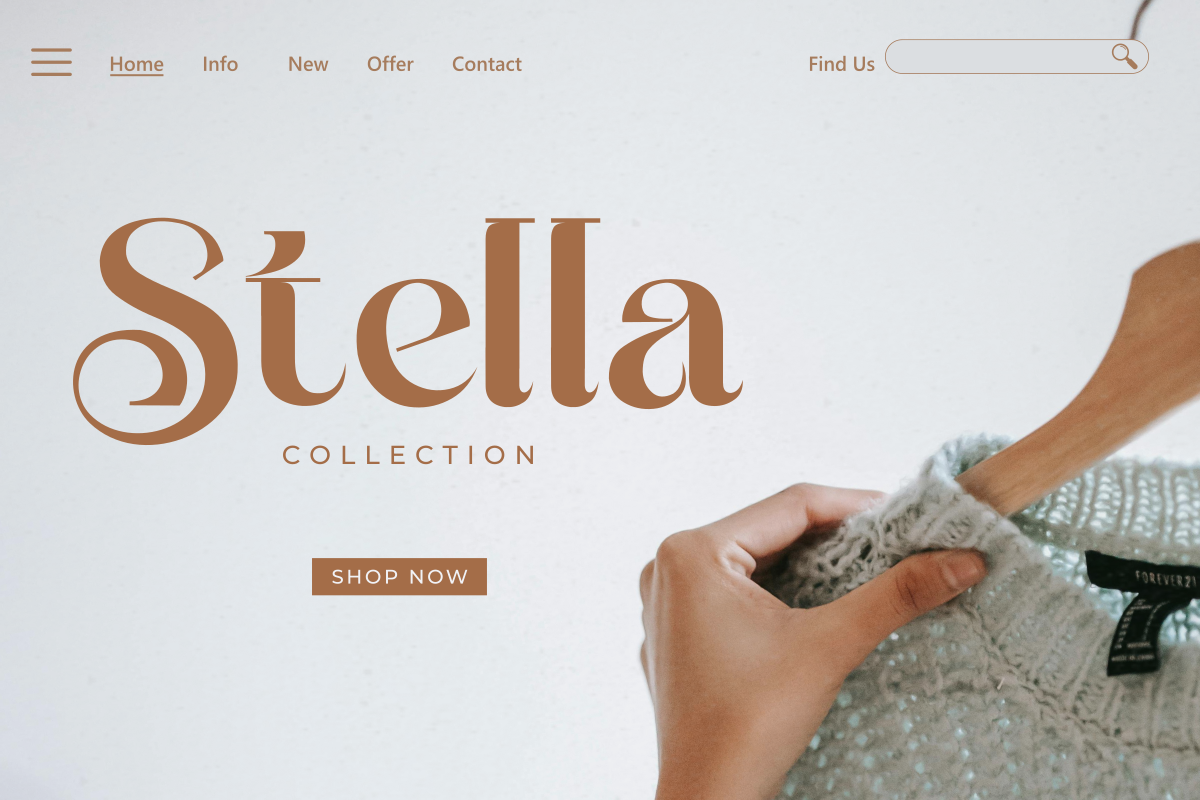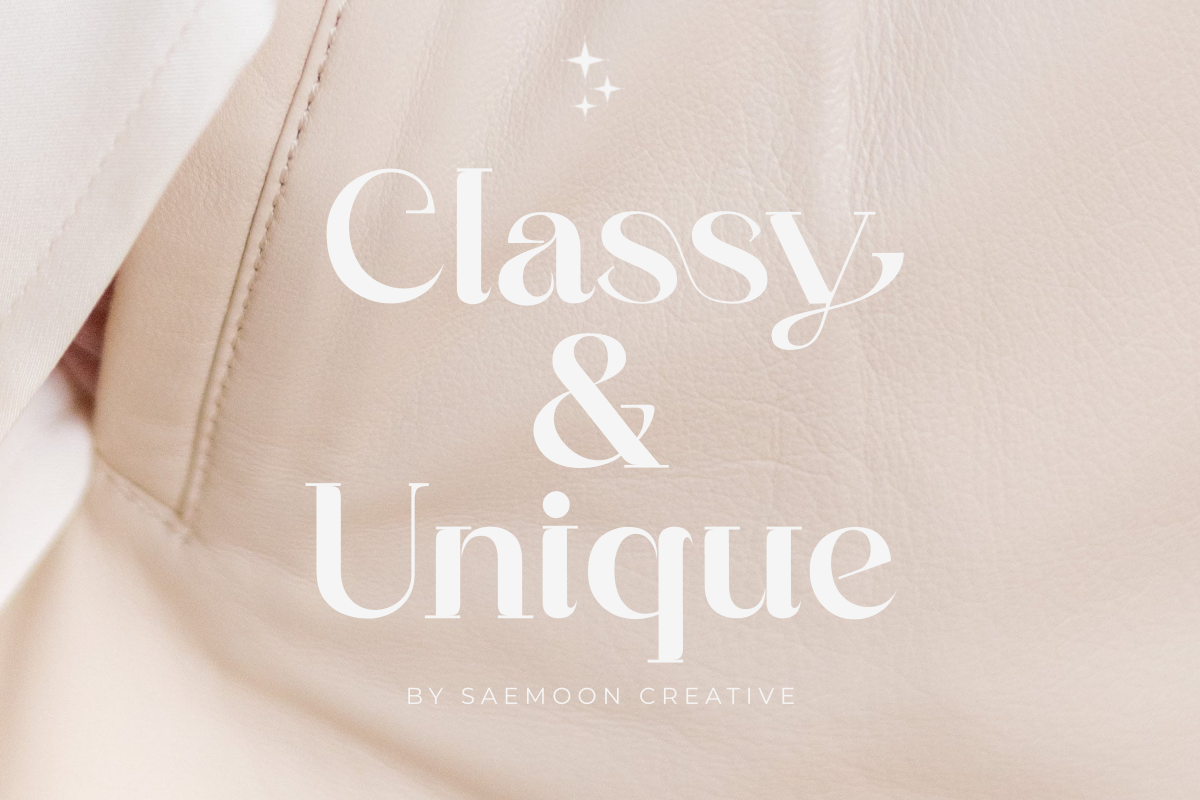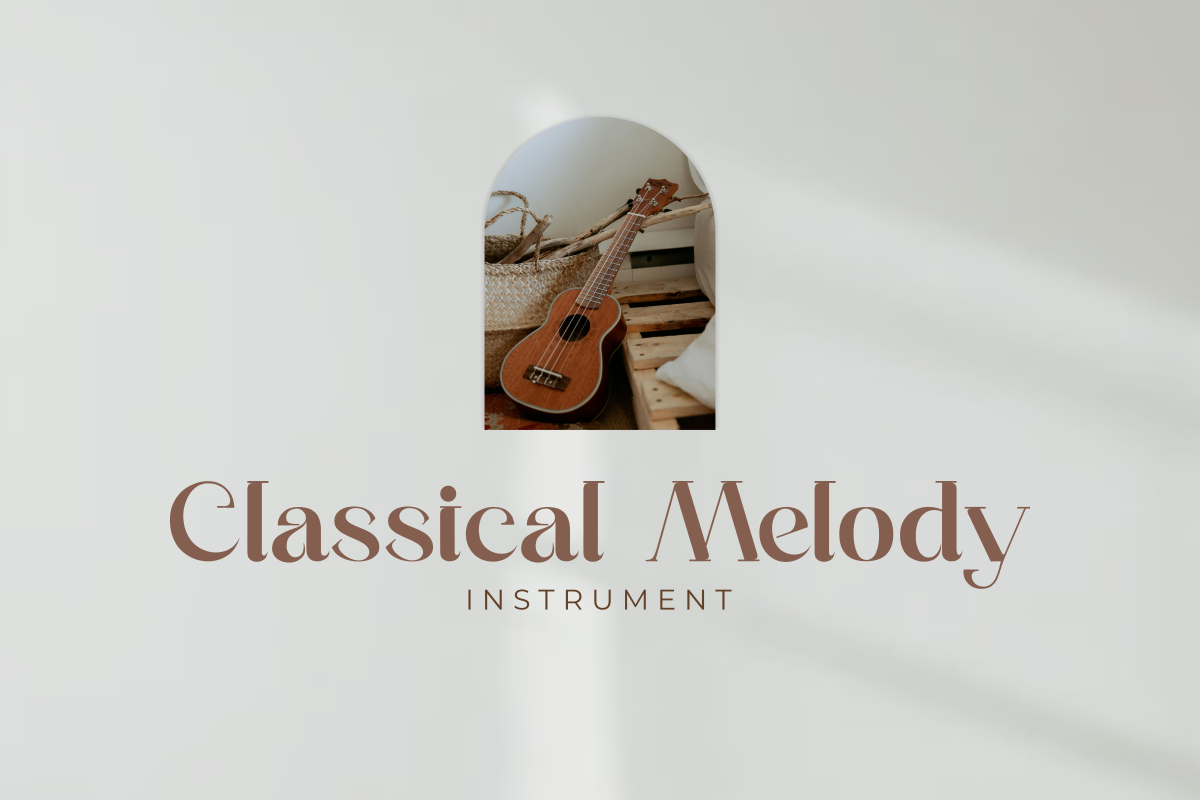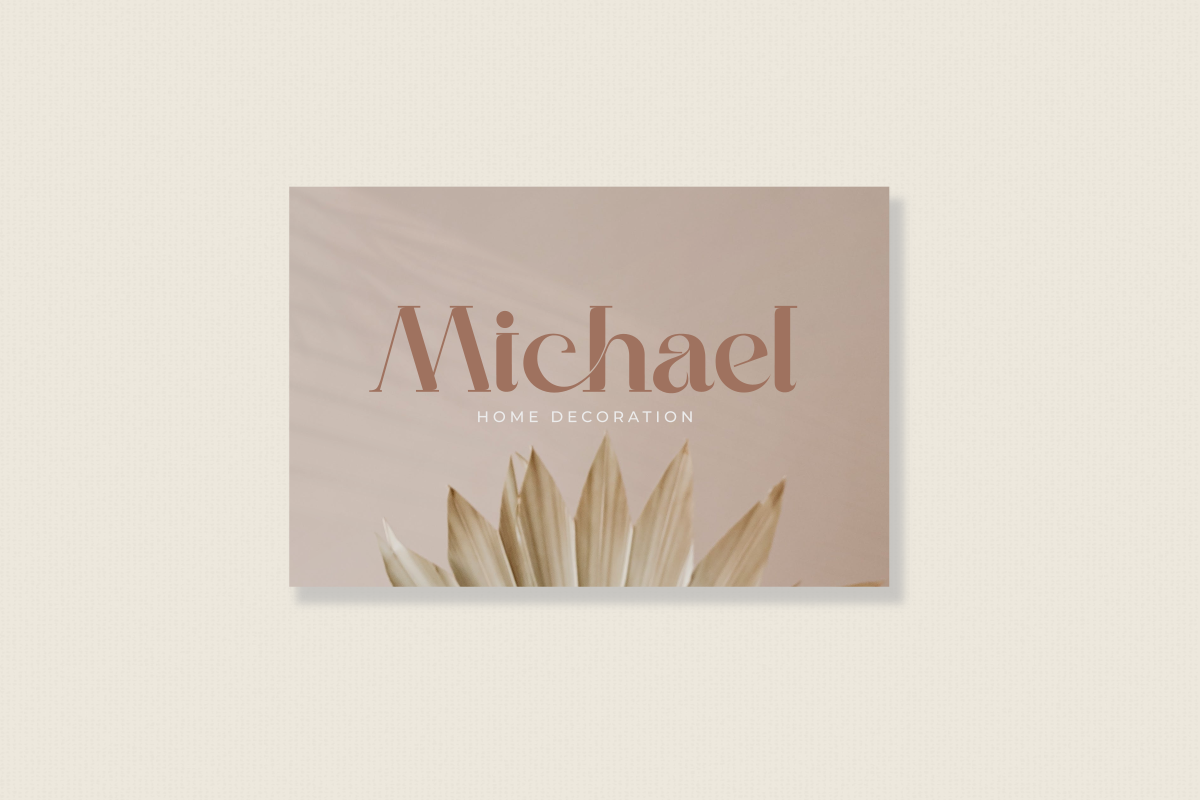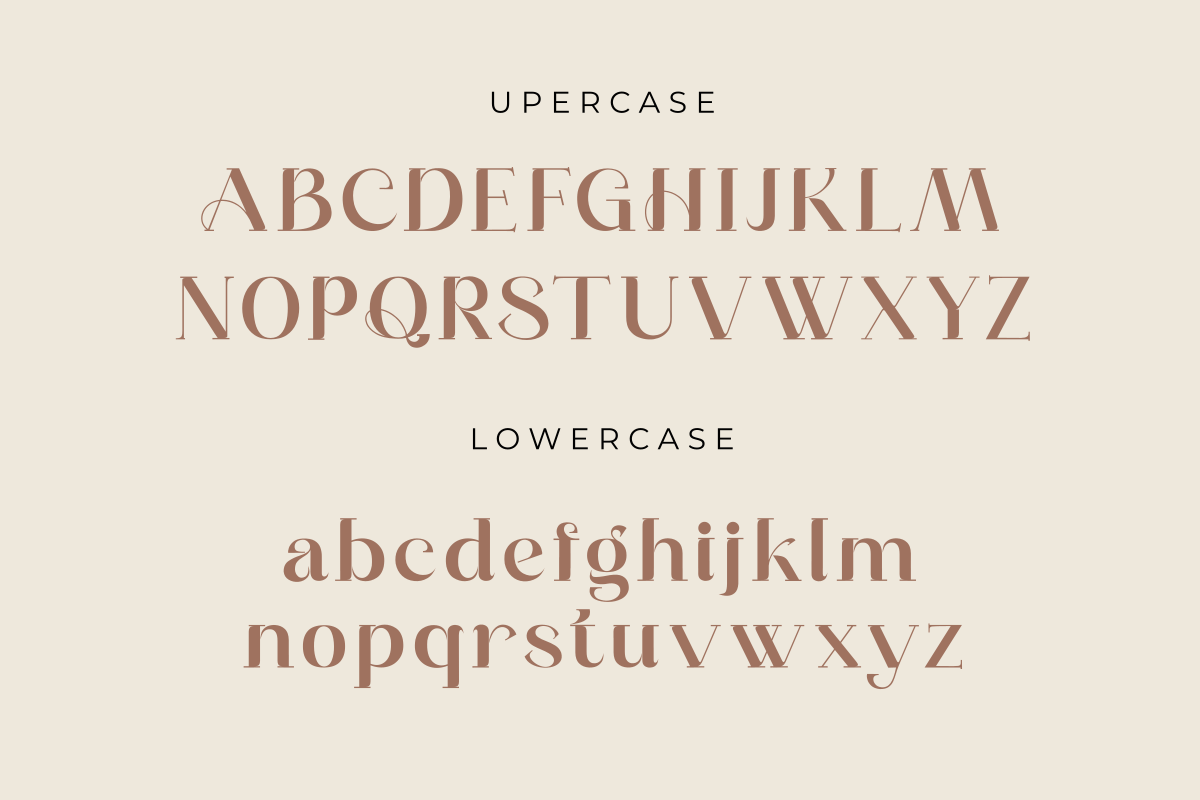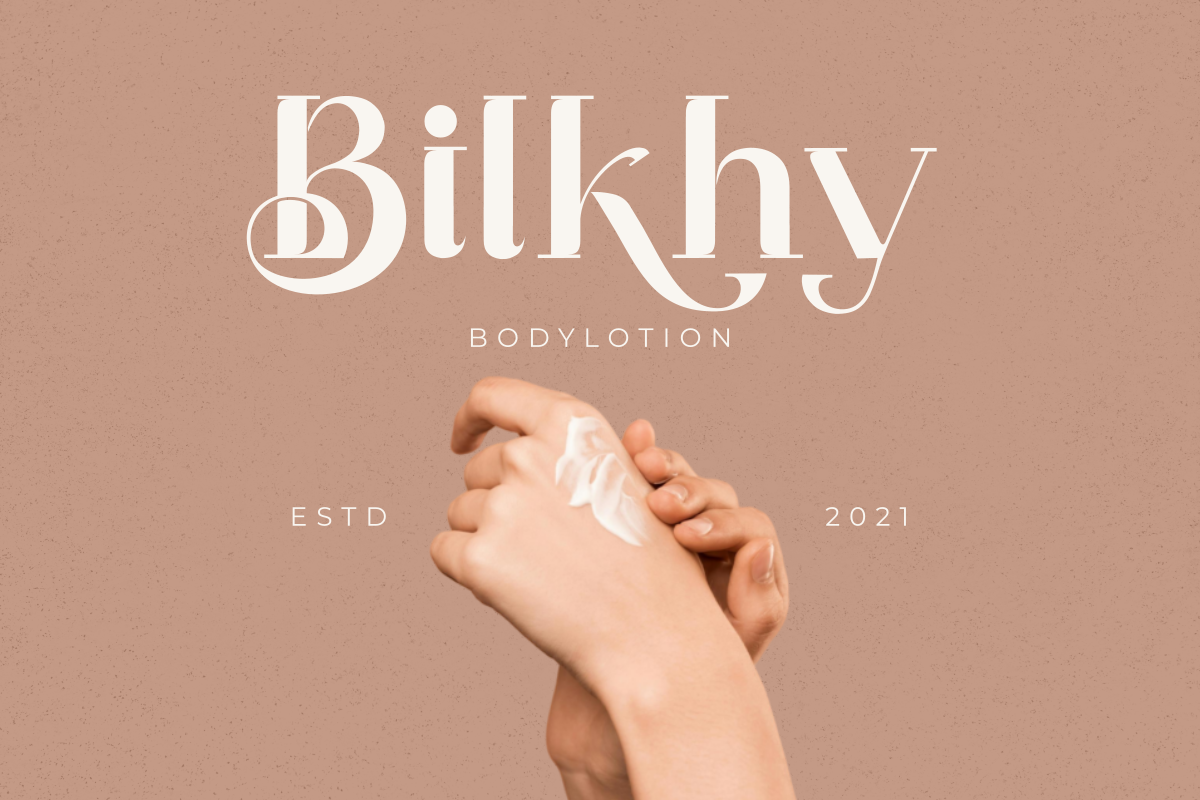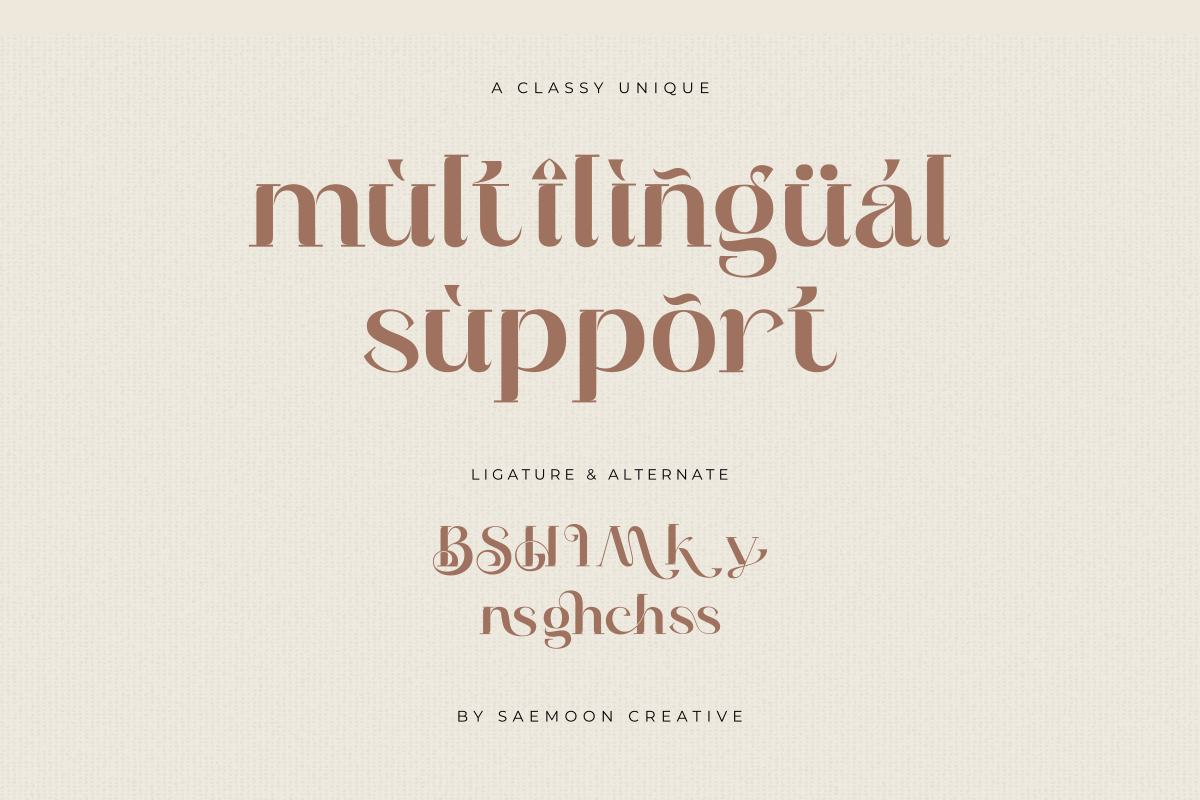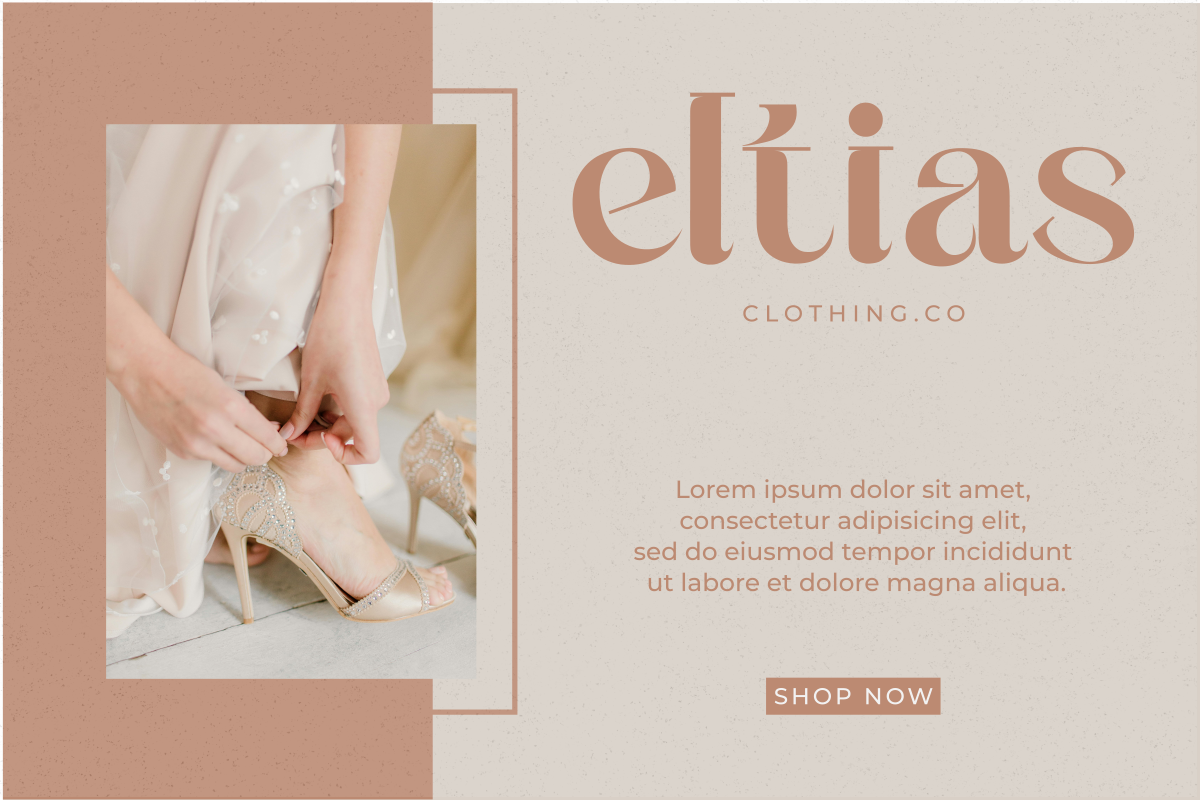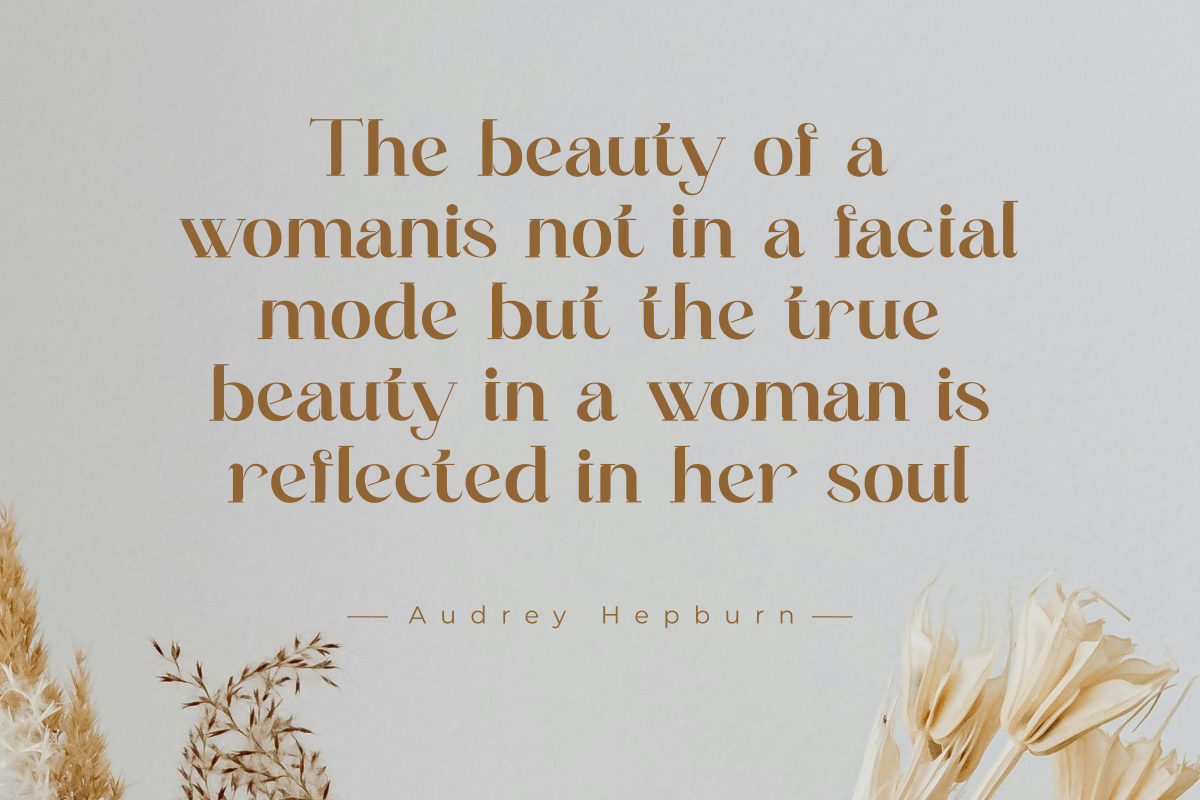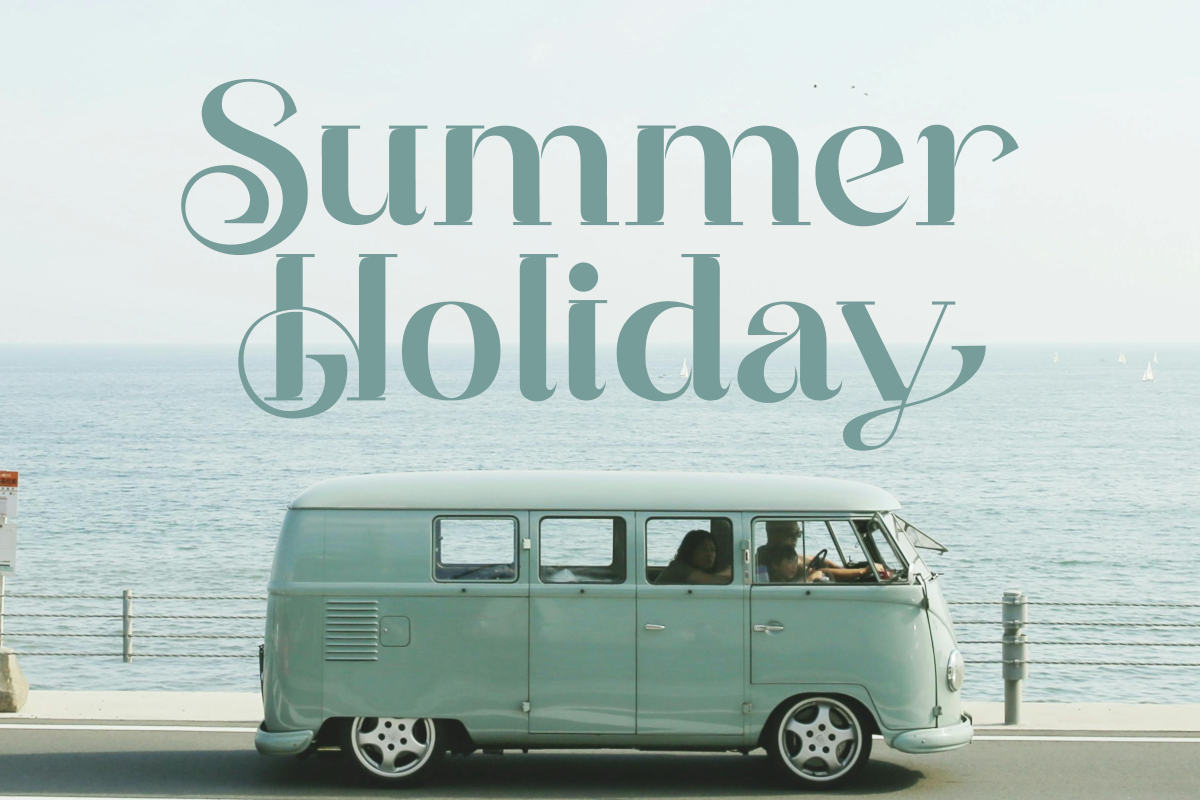
Insight Melody
The “Insight Melody” font is a symbol of elegance and uniqueness that captivates. Crafted with detailed design harmony, each letter depicts profound beauty and captivating intelligence. With a classic touch combined with modern nuances, this font creates an atmosphere that is elegant yet retains its unique authenticity. What’s Included : – Insight Melody (OTF/TTF/WOFF) – Standard glyphs – Multilingual – Web Font – Works on PC & Mac Simple installations – Symbols and Number Should you encounter any issues or have any queries, rest assured, we’re more than ready to help.